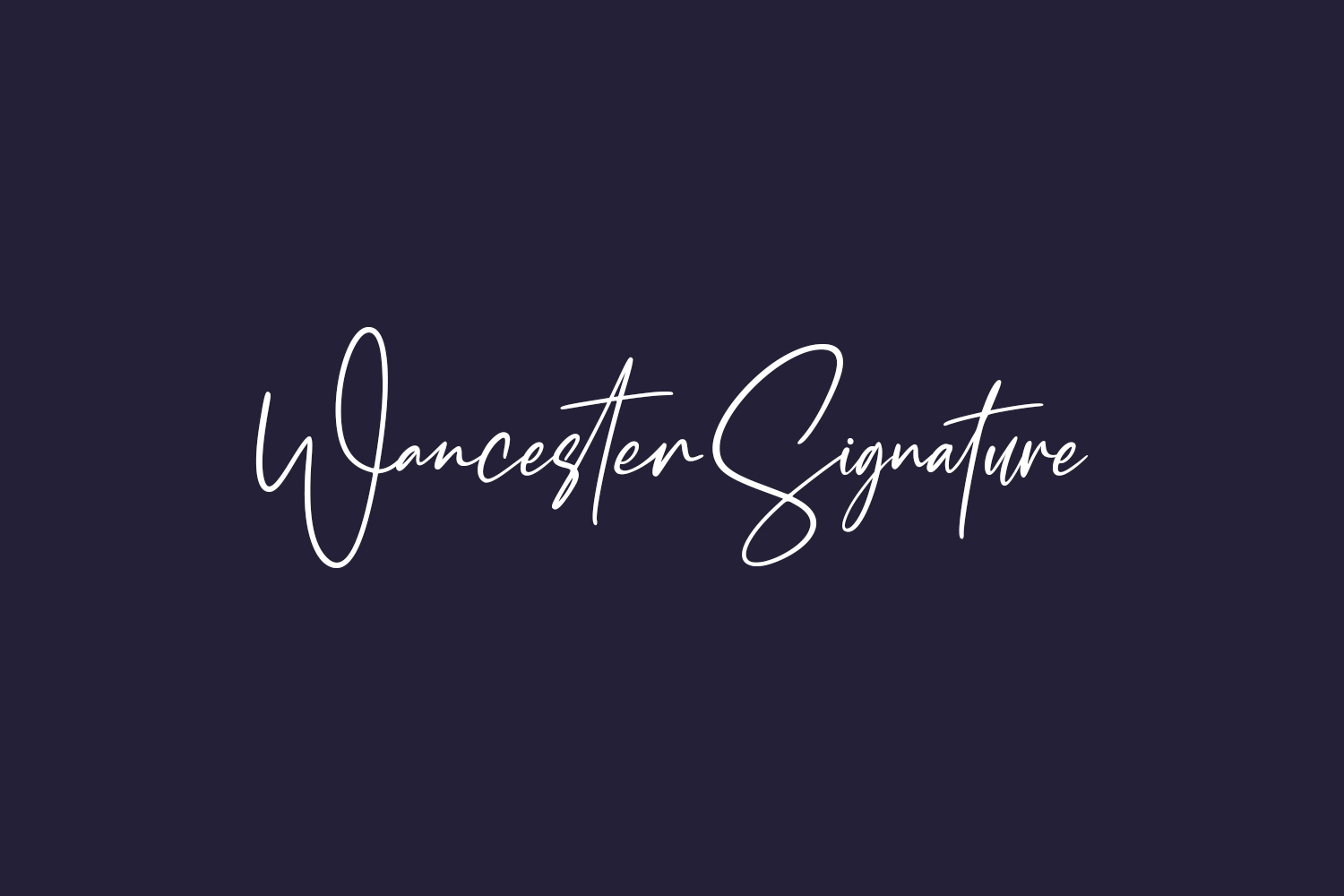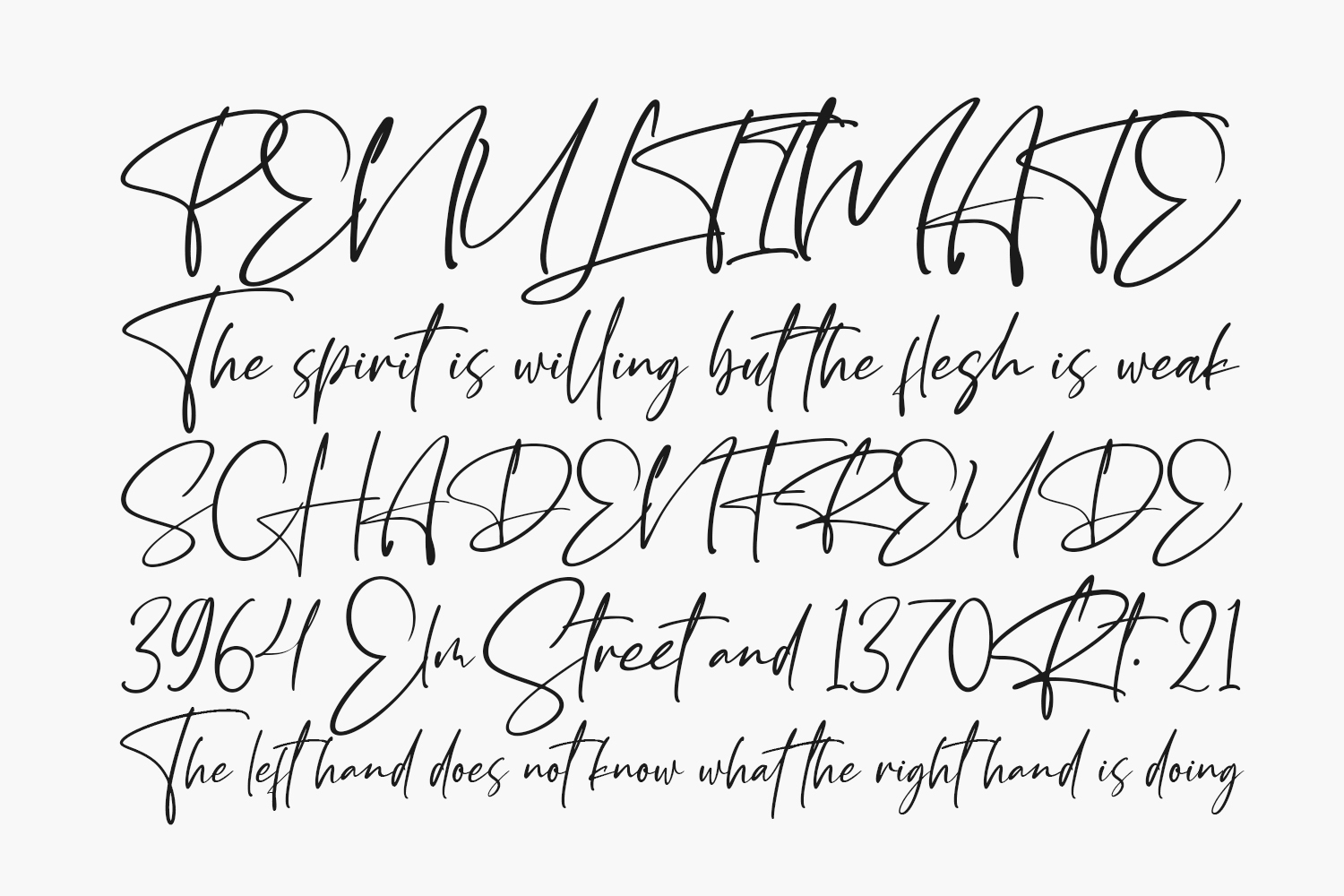
Wancester Signature Free Font is a delicate, elegant, and flowing handwritten font. It has beautiful and well-balanced characters and as a result, it matches a wide pool of designs. Wancester Signature Free Font features a varying baseline, smooth lines, gorgeous glyphs, and stunning alternates. Add it to your most creative ideas and notice how it makes them come alive. Wancester Signature Free Font was designed by Abas Creative and is free for personal use only. Please purchase the full version for commercial use.